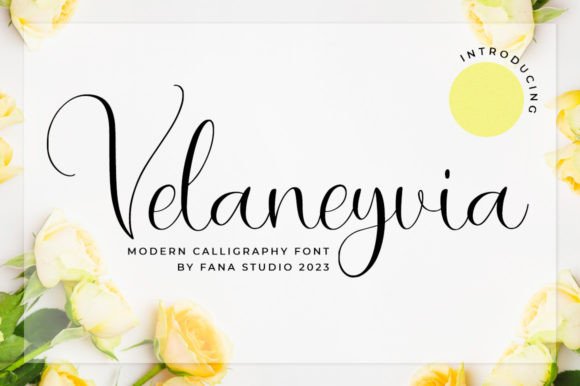
Introducing Velaneyvia Script: The Ultimate Font for a Timeless and Enchanting Presence
In the world of design, there's nothing quite like the power of a captivating font to transform your vision into a masterpiece. With its delicate strokes, graceful curves, and a touch of timeless elegance, the Velaneyvia Script font family stands as a testament to the enduring beauty of handwritten artistry.
Crafted with meticulous attention to detail, Velaneyvia Script offers you a wealth of creative possibilities. Whether you're designing logos that exude sophistication, crafting wedding invitations that ooze romance, or creating social media posts that demand attention, this versatile font has got you covered.
Its intricate script style lends a personal touch to every project, evoking a sense of elegance and class that's sure to leave a lasting impression. Dive into the world of Velaneyvia Script and unlock a realm of limitless creativity.
Dive into the World of Velaneyvia Script
- Logos & Branding: Elevate your brand identity with Velaneyvia Script's sophisticated appeal, creating logos that speak volumes about your dedication to quality and craftsmanship.
- Invitations & Stationery: Let the beauty of Velaneyvia Script grace your wedding invitations, save-the-dates, and other special occasion stationery. Its timeless charm will add a touch of elegance and romance to your momentous events.
- Social Media & Advertising: Make your social media posts and advertisements stand out from the noise with Velaneyvia Script's captivating style. Its unique charm is sure to attract attention and leave a lasting impression on your audience.
- Product Packaging & Design: Create product packaging and designs that exude luxury and sophistication with Velaneyvia Script. Its intricate details and flowing lines will enhance the perceived value of your products, making them irresistible to customers.
- Photography & Watermarks: Add a touch of artistry and exclusivity to your photography with Velaneyvia Script's elegant watermarks. Protect your work while simultaneously enhancing its beauty, leaving a lasting impression on viewers.
- Special Events: Whether it's a birthday party, anniversary celebration, or any other special occasion, Velaneyvia Script will add a touch of magic to your decorations and invitations. Its timeless appeal will create an unforgettable atmosphere for your guests.